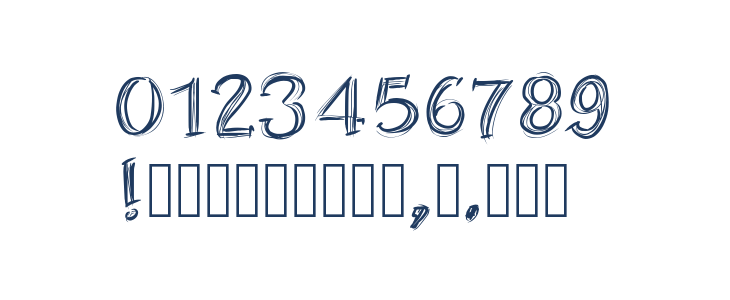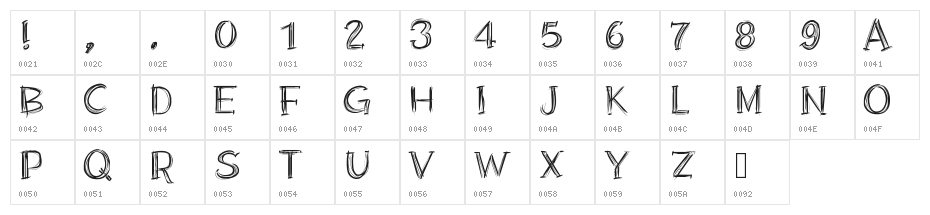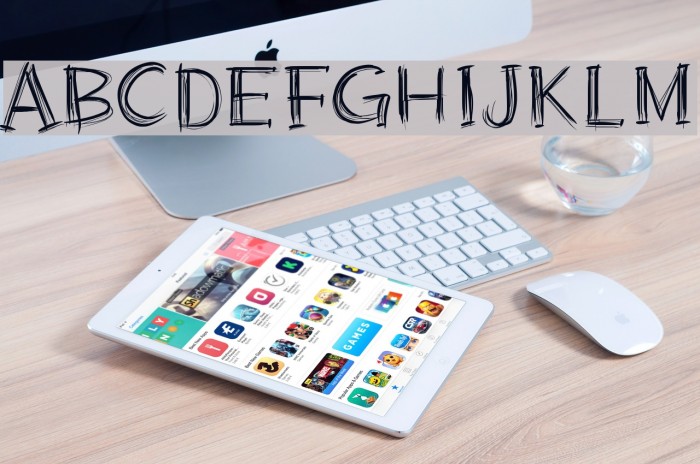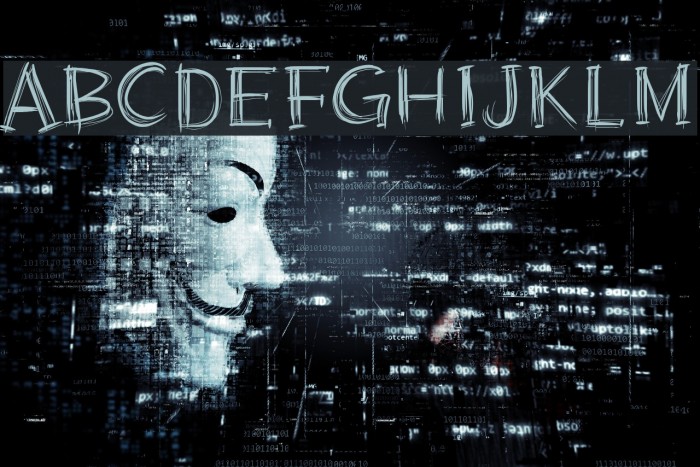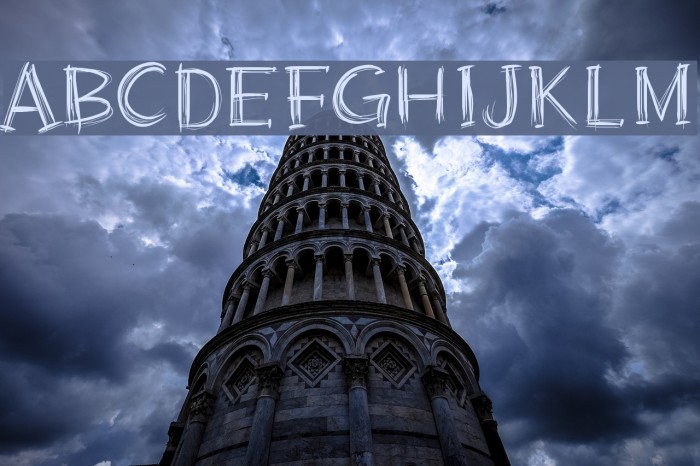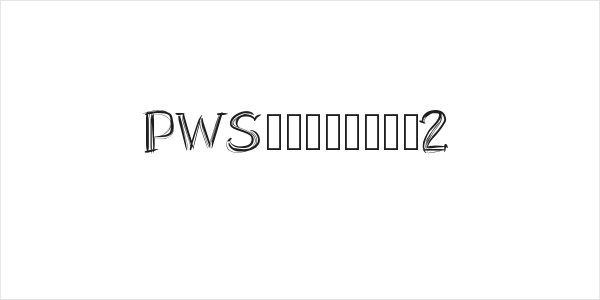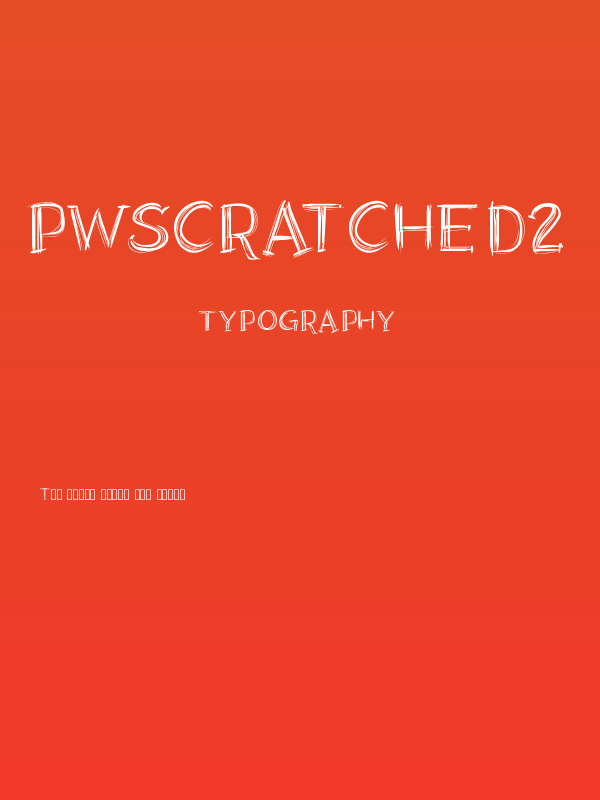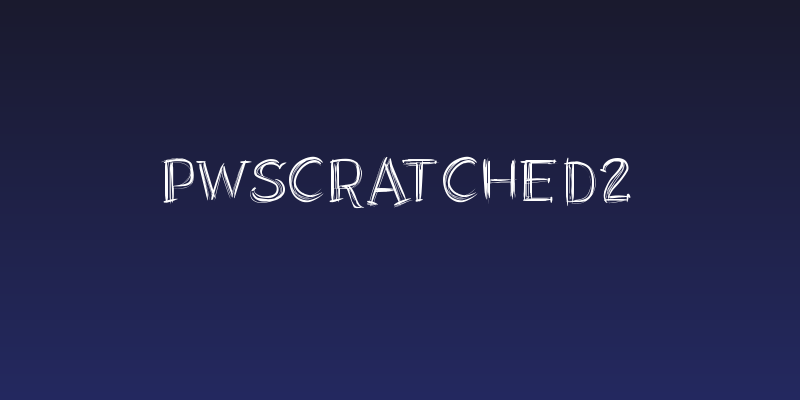
PWScratched2 Font
PWScratched2 Description
This font features a unique, hand-drawn style with a scratched, textured appearance. Each character is outlined with irregular, jagged lines that give it a dynamic and edgy feel. The strokes vary in thickness, adding to the distressed look, while maintaining legibility. The uppercase and lowercase letters are consistent in style, with numbers and special characters following the same design principles. This font's distinctive appearance makes it stand out, ideal for projects that require a bold and artistic touch.
| Proposed Projects | Ideal for album covers, posters, graffiti art, and edgy branding projects. |